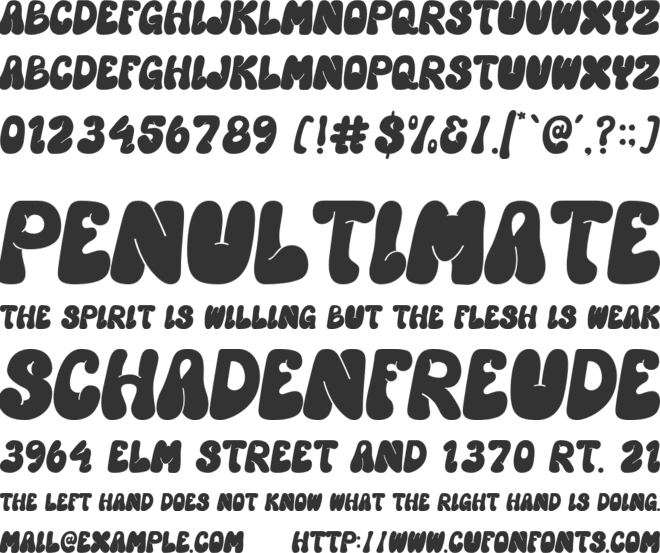
Hyper Blob Font Family
A display typeface that has a bubble character and graffiti theme font to work with.
The Hyper blob font is, as the name suggests, a hypebeast and unique display font. This font I've created has been in heavy use this year & is very versatile, goes well with a variety of designs, elevating it to the highest level. Add this font to your favorite creative ideas and see the results!
features: uppercase, lowercase, alternate, ligature & multilingual